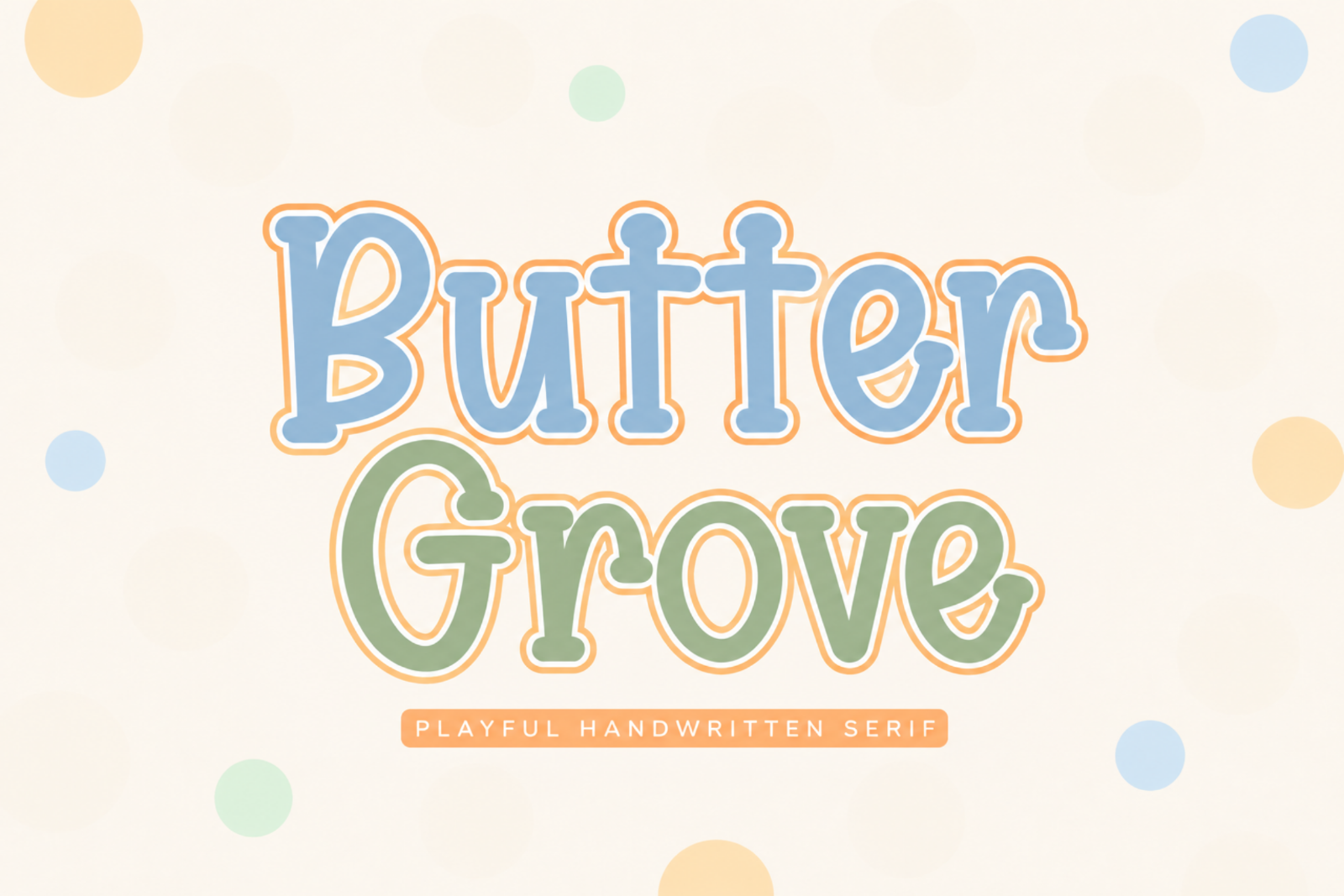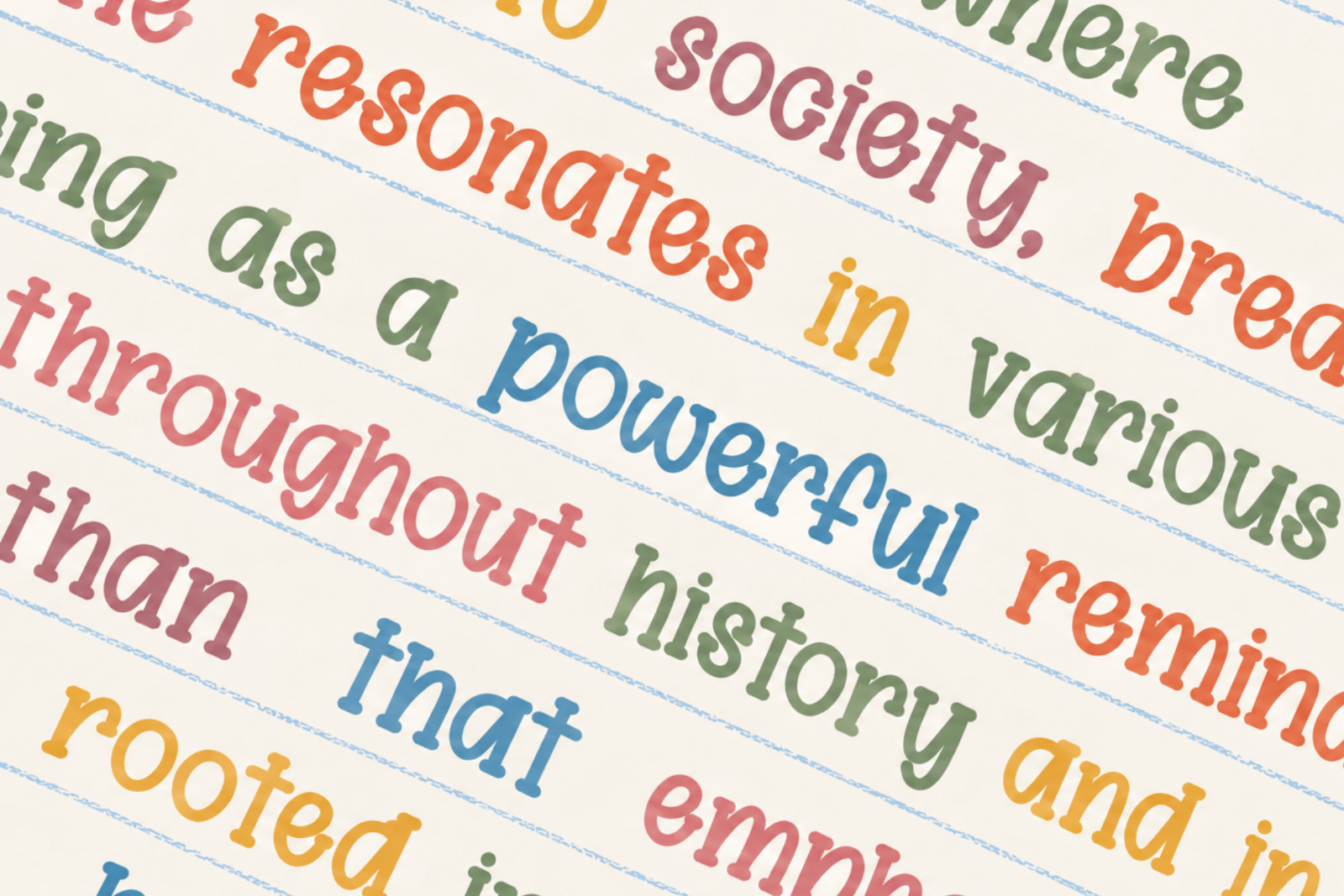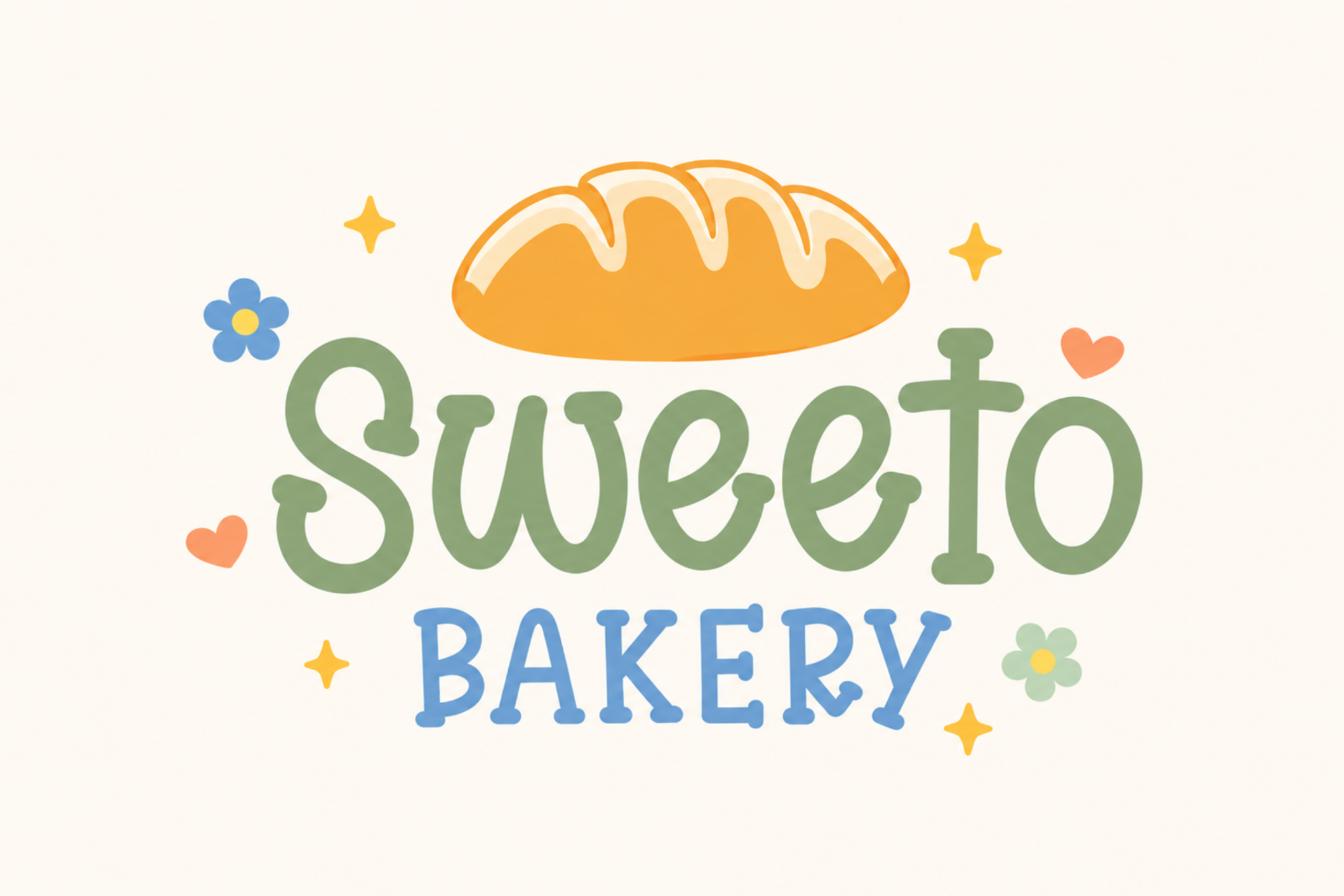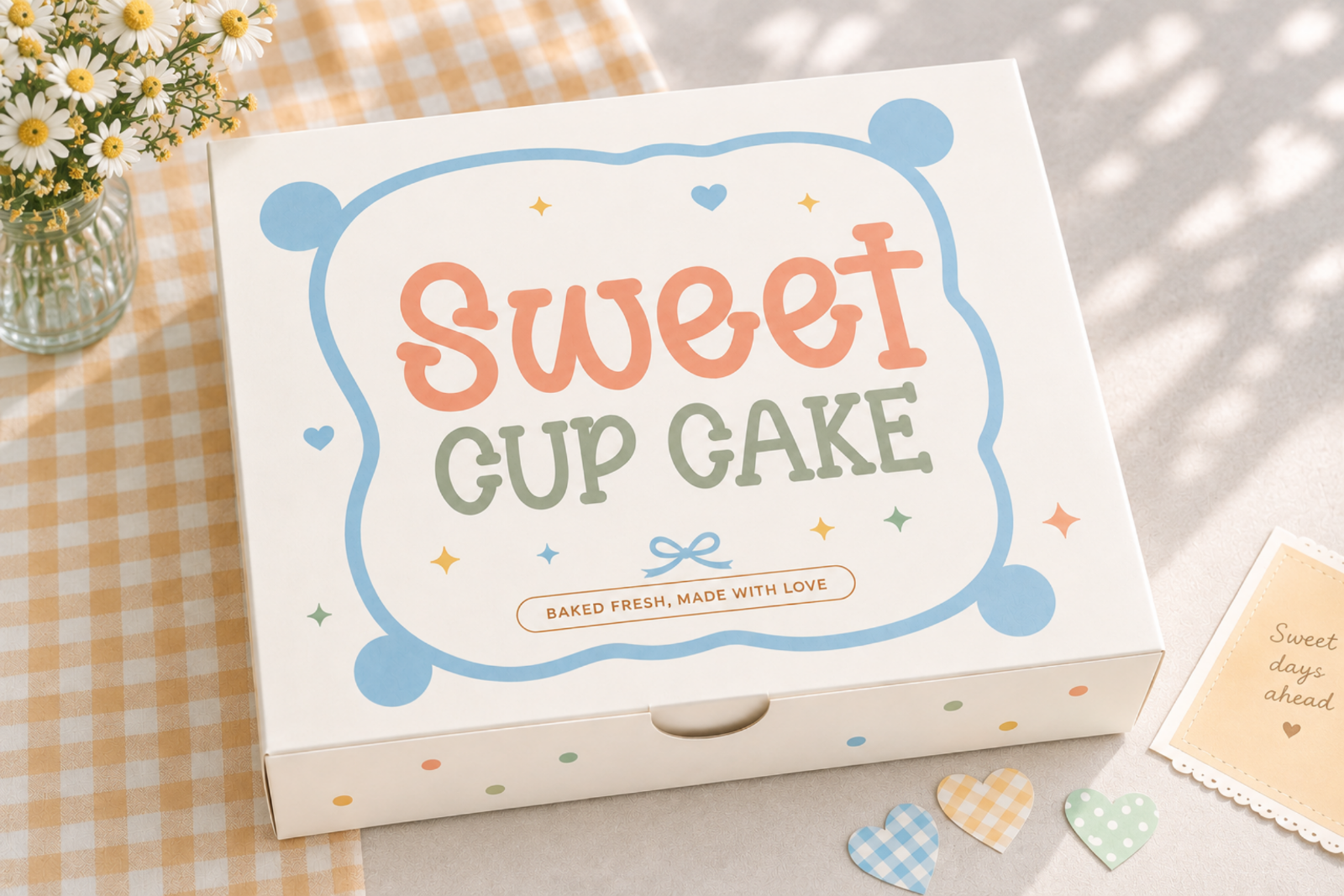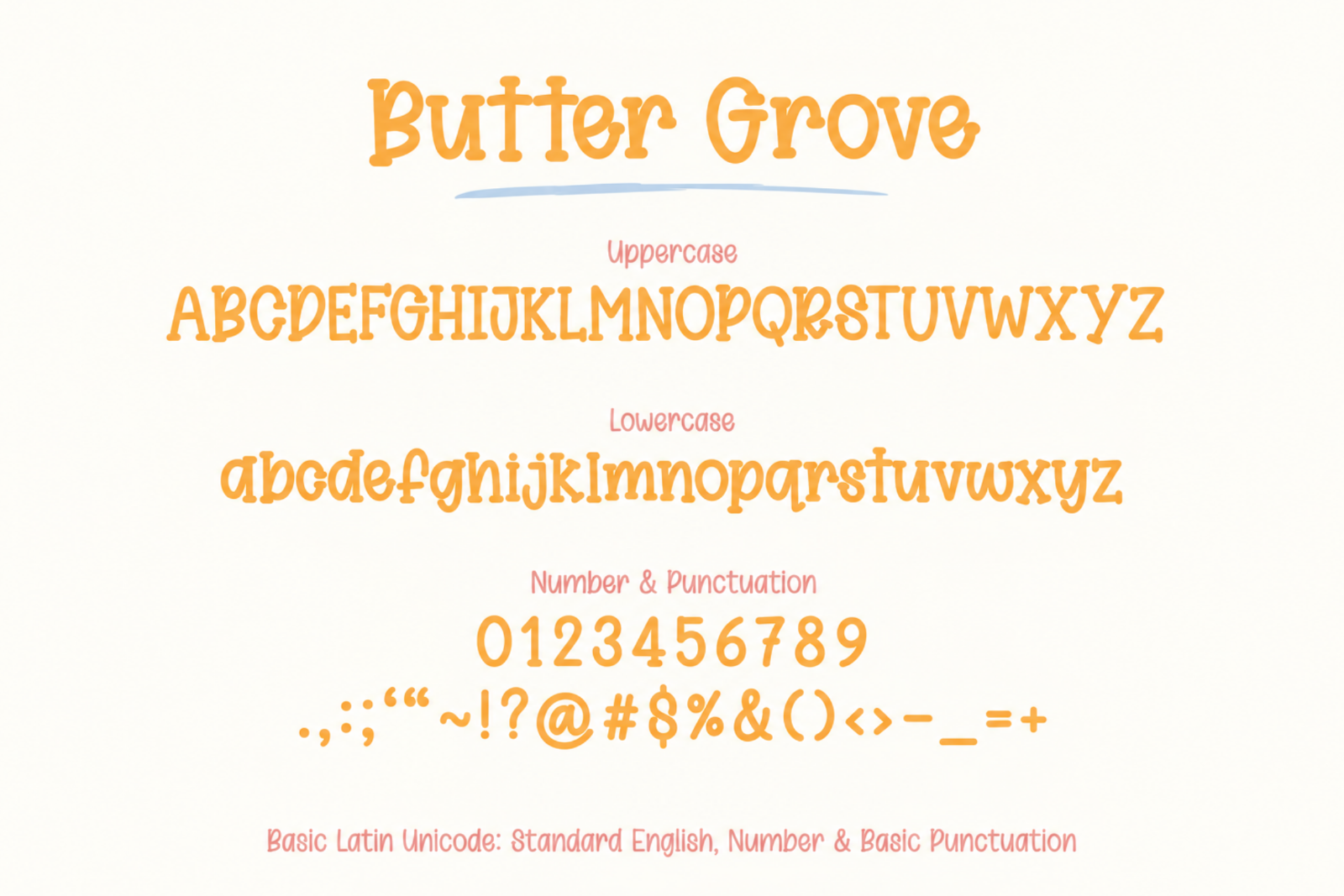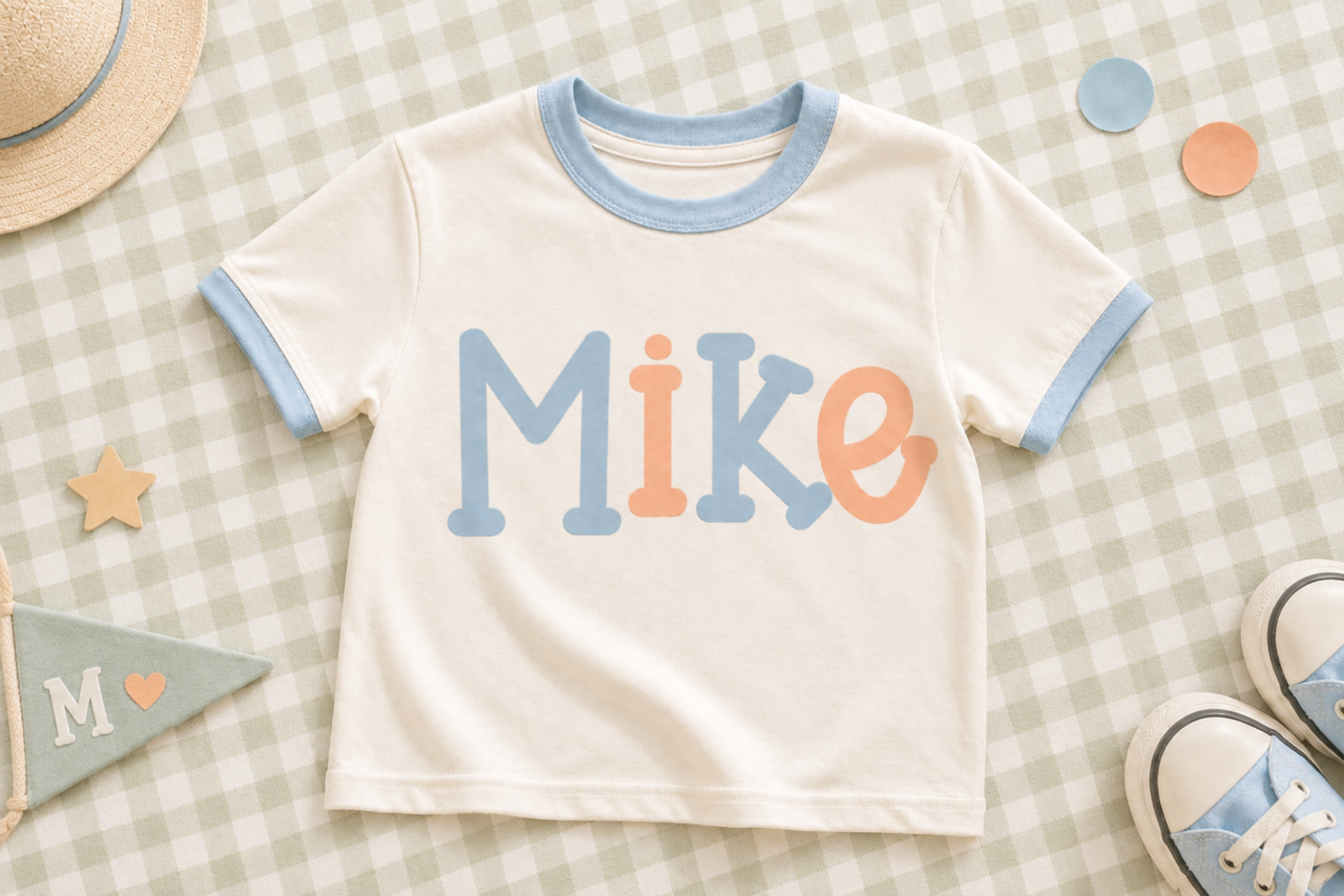
Butter Grove is a playful handwritten serif font filled with warmth, charm, and a cheerful handmade personality.
With its rounded serifs, slightly quirky letterforms, and friendly hand-drawn feel, Butter Grove is perfect for designs that need to feel fun, approachable, nostalgic, and full of character.
Its playful style works beautifully for branding, food and beverage packaging, bakery and café designs, product labels, kids projects, teacher designs, merchandise, stickers, posters, social media graphics, and creative lifestyle brands.
Butter Grove is especially lovely for ice cream packaging, bakery branding, cute product labels, tote bags, T-shirts, mugs, classroom designs, children’s products, and playful small-business branding.
Whether you’re creating a cheerful bakery brand, playful packaging, classroom graphics, or cute merchandise, Butter Grove brings a warm handmade touch that makes every design feel a little more special.